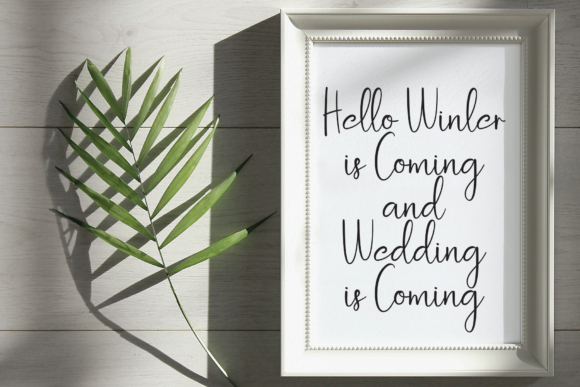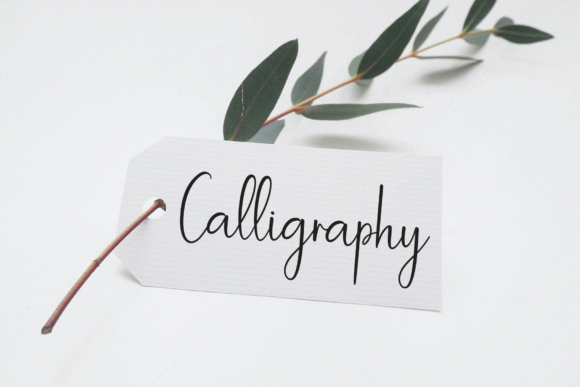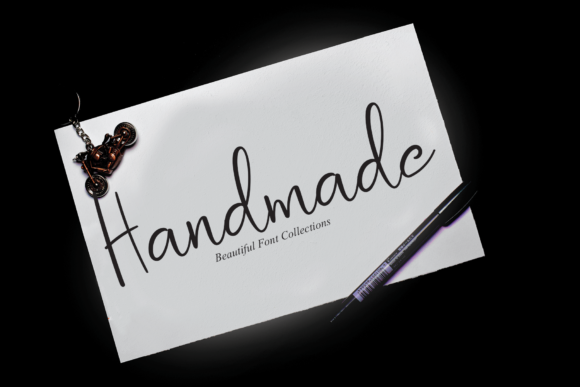
Introducing Blackpink Font: The Ultimate Choice for Designers and Crafters
Are you a designer or crafter looking for a unique and stylish font to elevate your creative projects? Look no further than Blackpink Font, a relaxed and casual handwritten font that is sure to impress. Crafted with great care, Blackpink Font is designed to produce stunning results that will make your posters, flyers, and prints stand out from the crowd.
What is Blackpink Font?
Blackpink Font is a carefully crafted handwritten font that exudes a sense of relaxation and casualness. Its unique and stylish design makes it perfect for a wide range of creative projects, from posters and flyers to prints and digital designs. With its smooth and flowing lines, Blackpink Font is sure to add a touch of elegance and sophistication to any design.
Key Features of Blackpink Font
- Relaxed and Casual Design: Blackpink Font features a relaxed and casual design that is perfect for creating laid-back and effortless designs.
- Handwritten Style: With its handwritten style, Blackpink Font adds a personal touch to any design, making it perfect for creating unique and eye-catching designs.
- High-Quality Craftsmanship: Blackpink Font was crafted with great care to produce high-quality results that will exceed your expectations.
- Versatile: Blackpink Font is versatile and can be used for a wide range of creative projects, from posters and flyers to prints and digital designs.
Why Choose Blackpink Font?
So, why choose Blackpink Font for your creative projects? Here are just a few reasons:
- Easy to Read: Blackpink Font is easy to read, making it perfect for designs that require a clear and concise message.
- Unique and Stylish: With its unique and stylish design, Blackpink Font is sure to make your designs stand out from the crowd.
How to Use Blackpink Font
- Pair it with Other Fonts: Blackpink Font can be paired with other fonts to create a unique and eye-catching design.
- Use it for Headings and Titles: Blackpink Font is perfect for headings and titles, where its unique and stylish design can really shine.